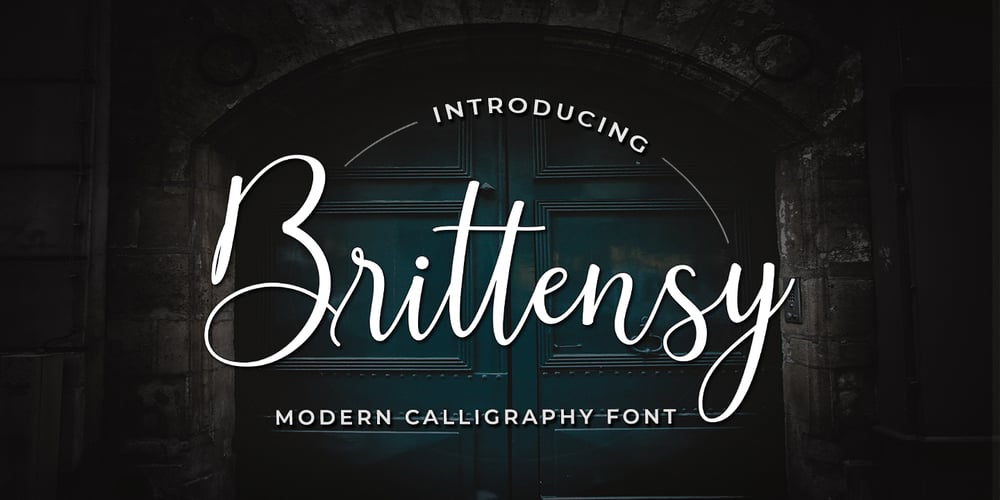
Brittensy
Brittensy font
Brittensy Font Family was designed by Muammar Kadafi and published by Attract Studio. Brittensy contains 1 styles and family package options. Introducing the latest styles Brittensy script is a modern calligraphy design, including Regular. This font is enough with a sweep. Can be used for various purposes. such as logos, product packaging, wedding invitations, brand imagery, titles, signs, labels, signatures, book covers, posters, quotes, and more.